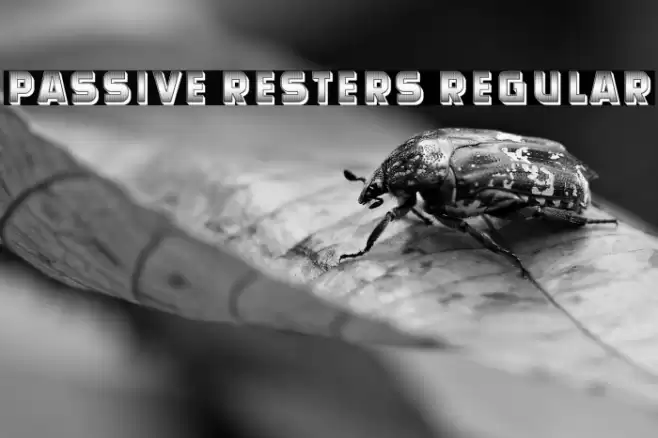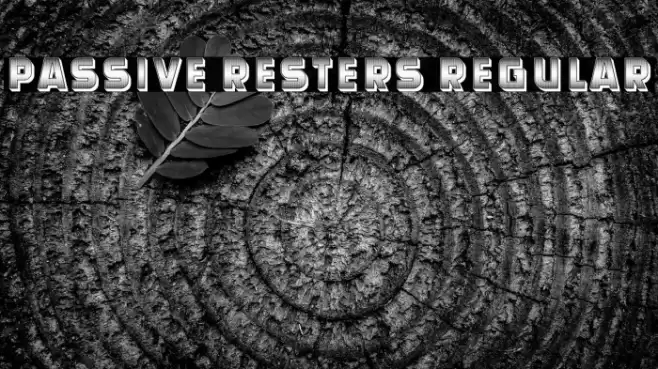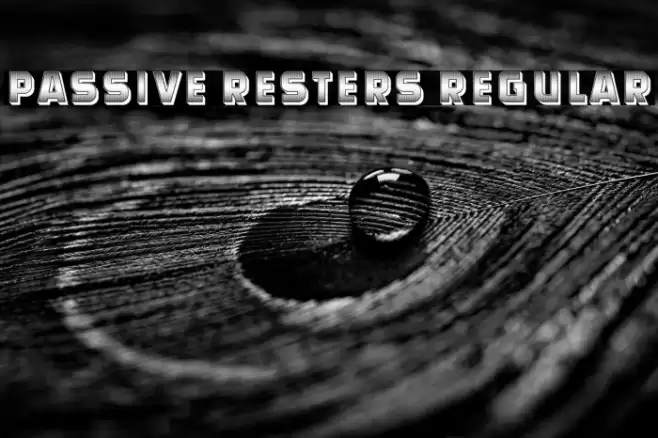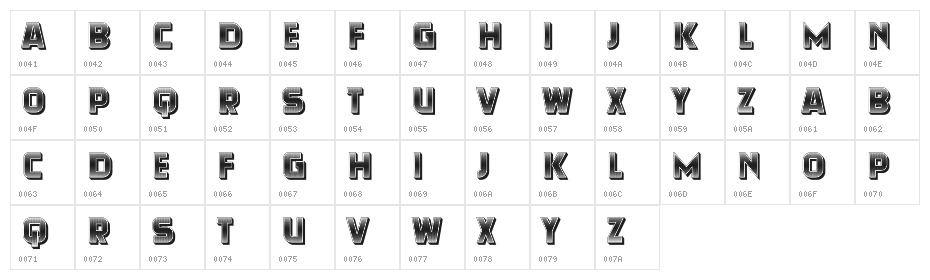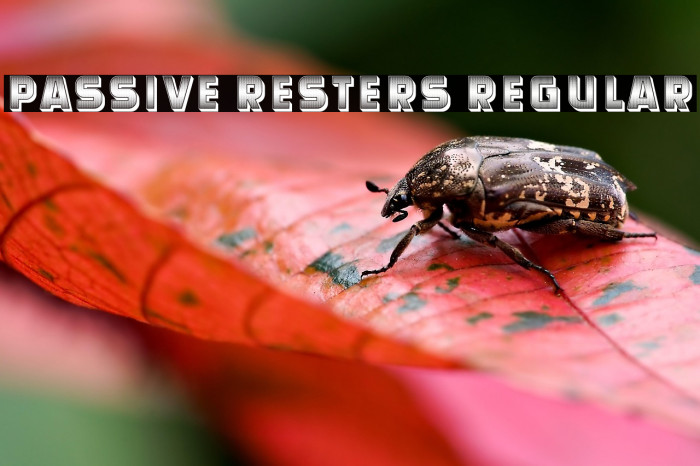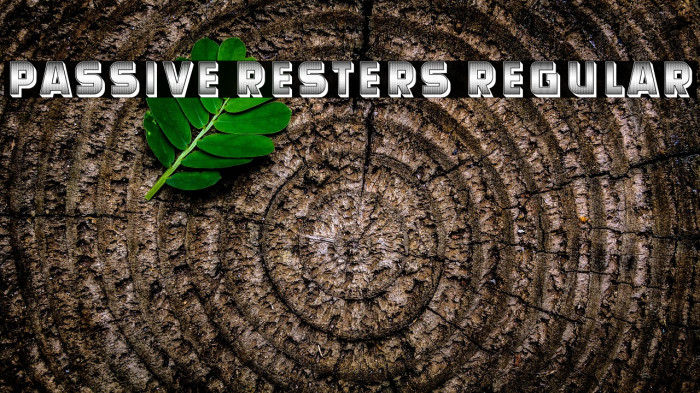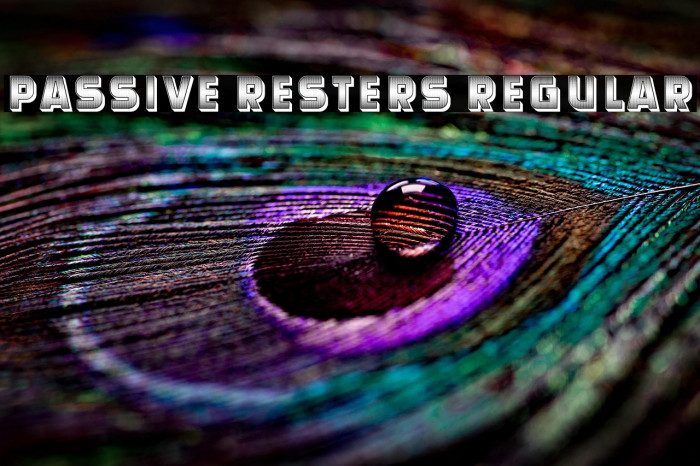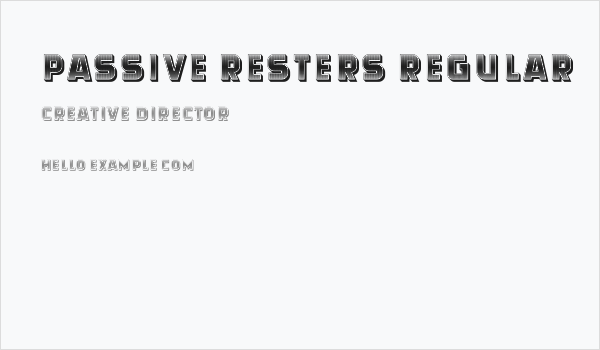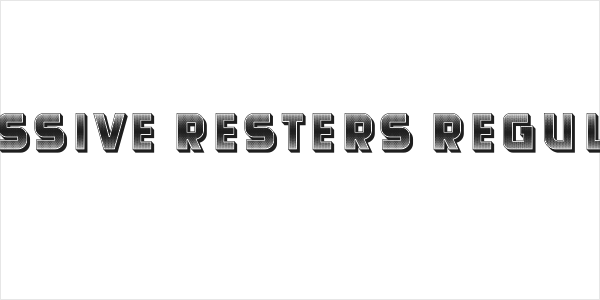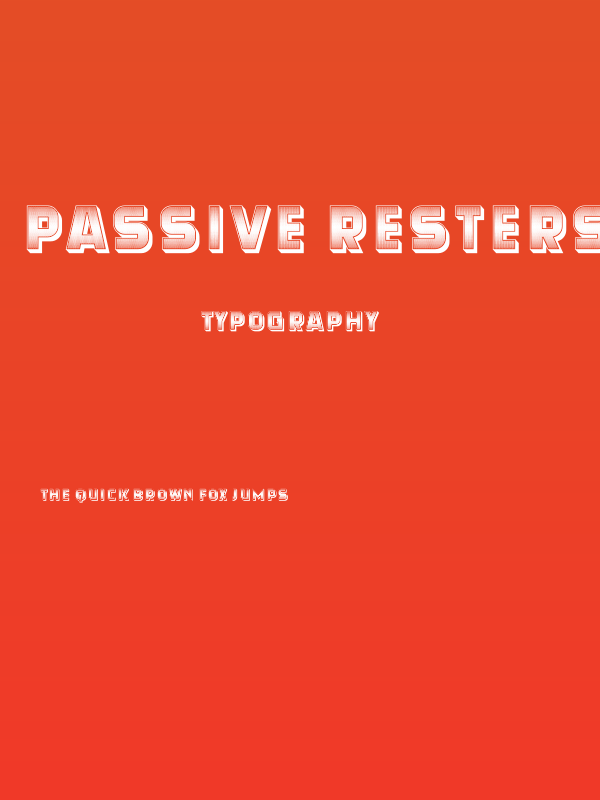
Passive Resters Regular Font
Passive Resters Regular Description
This font features a bold, three-dimensional design with a metallic texture that gives it a striking, industrial appearance. The characters are blocky and robust, with a strong presence that makes them stand out. The shading and highlights create a sense of depth, enhancing the 3D effect. Each letter is meticulously crafted to maintain consistency in style, making it ideal for projects that require a bold and impactful visual statement. The font's unique design is perfect for creating eye-catching headlines, posters, and branding materials that demand attention.
A bold, 3D metallic font with an industrial and impactful style from Uncategorized fonts.
- Proposed Projects: Ideal for posters, headlines, branding, and any project needing a bold, industrial look.
- Overall Style: Modern, Industrial
- Use Case: Headlines, Posters, Branding